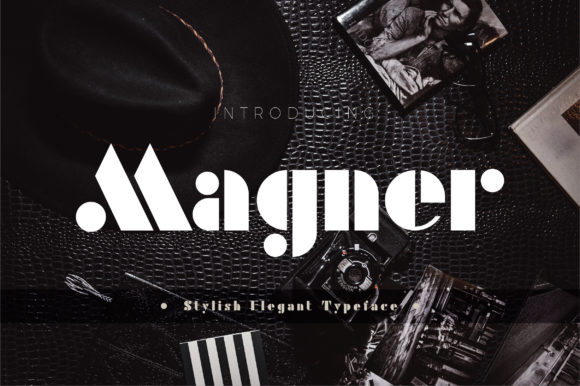
Dive into the world of Magner Font, a creation by geengraphy, and embark on a captivating visual journey. This display font exudes a modern and clean aesthetic, poised to transform your design concepts into captivating masterpieces. With its remarkable versatility, Magner Font effortlessly adapts to a myriad of creative endeavors, injecting a touch of brilliance into each project you undertake.
Unleash your creativity and let Magner Font ignite your imagination. Its meticulously crafted characters dance harmoniously, creating a visual symphony that resonates with elegance and sophistication. Whether you're crafting captivating fashion blogs, alluring social media posts, or eye-catching marketing materials, Magner Font empowers you to weave a captivating narrative that leaves a lasting impression.
Experience the allure of Magner Font, a font family that embodies the essence of modern design. Its clean lines, balanced proportions, and subtle curves evoke a sense of sophistication and refinement, elevating your projects to new heights of visual appeal. As you explore its endless variations, you'll discover a treasure trove of possibilities, empowering you to craft unique and memorable designs that stand out from the crowd.
With Magner Font as your creative companion, you'll embark on an artistic odyssey where boundaries dissolve, and imagination takes flight. Its user-friendly interface and intuitive features make it an ideal choice for designers of all skill levels, enabling you to effortlessly transform your creative vision into a tangible reality. Embrace the power of Magner Font and unlock the gateway to a world of endless creative possibilities.